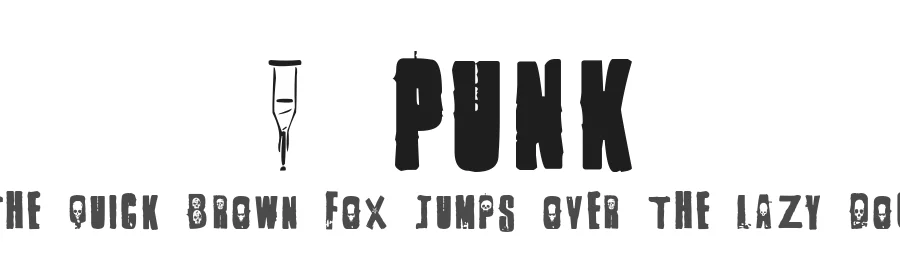
About Quartermaster Font
Quartermaster is a decorative font designed by font studio four. It includes 183 glyphs, a regular weight, OTF (CFF) format, and 203 languages. Quartermaster is free to download; check the license details on this page before commercial use. Decorative fonts like Quartermaster work best for logos, posters, packaging, and standout headlines.
Quartermaster Font is a decorative font that shines as a display or heading face. Pair it with a clean sans-serif or serif font for body text β the contrast creates a clear hierarchy while the two styles stay balanced and easy to read.
Quartermaster Font
Quartermaster Font is a decorative typeface by font studio four, ideal for logos, invitations, branding, and creative projects.